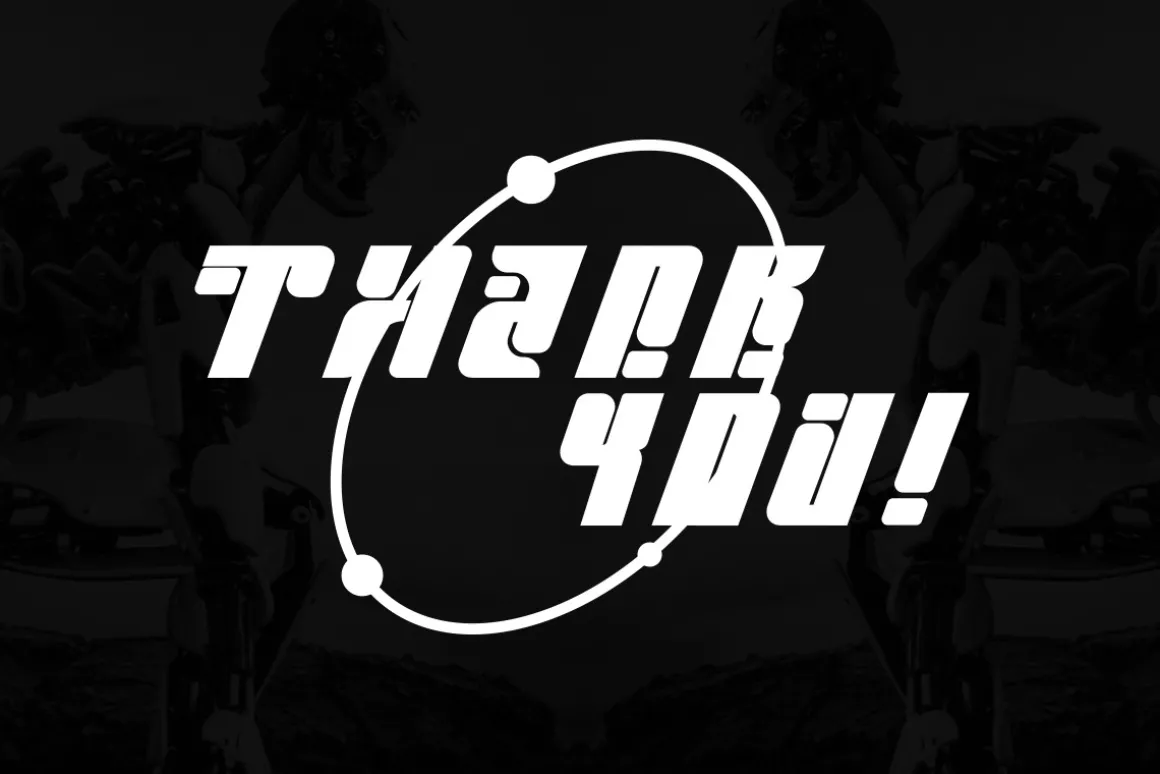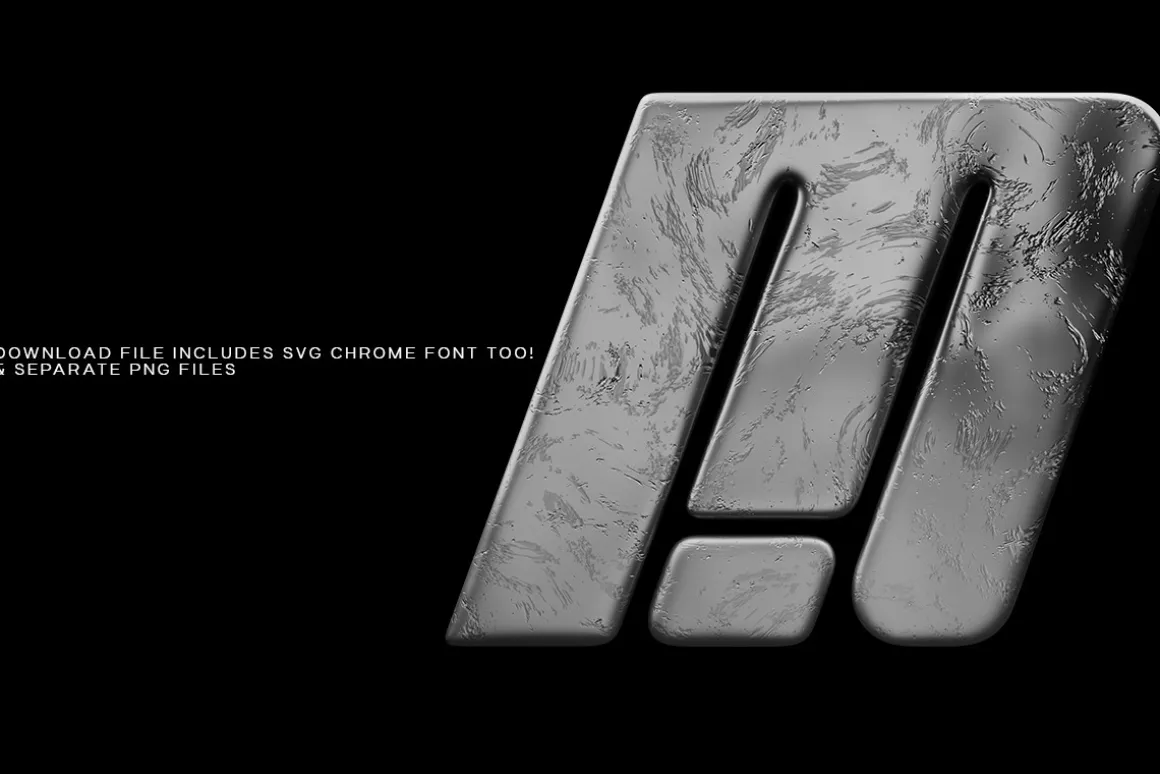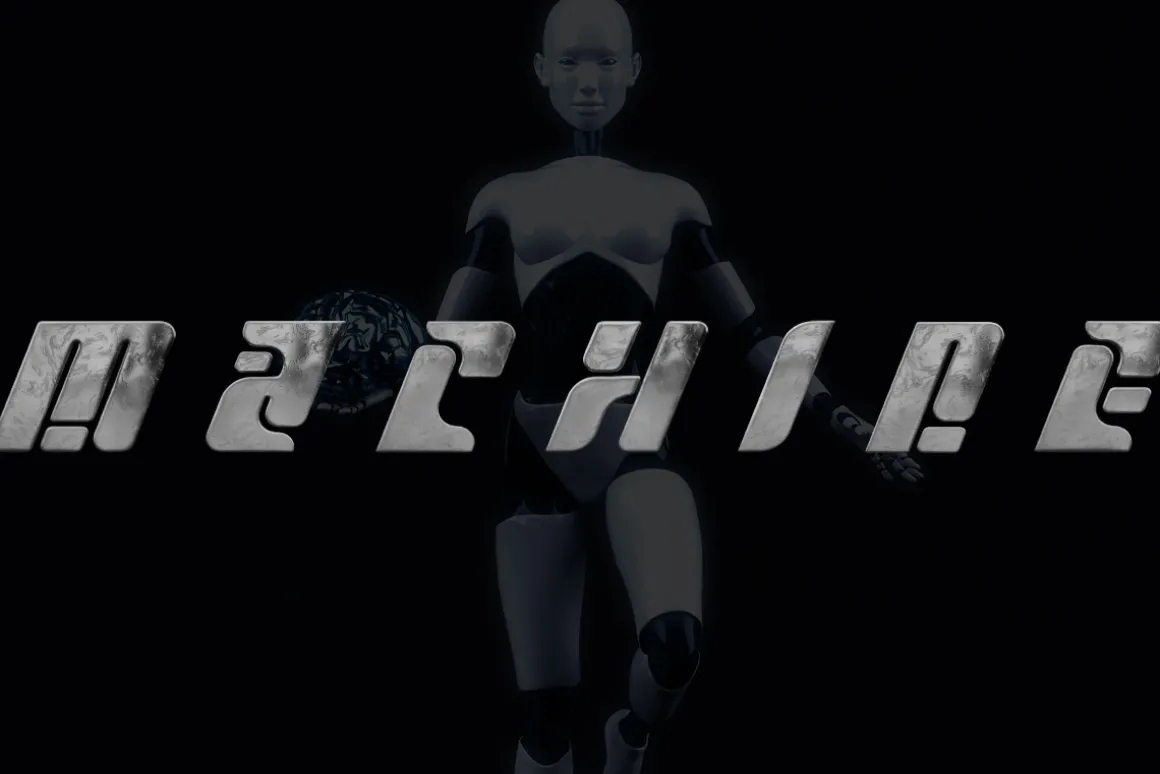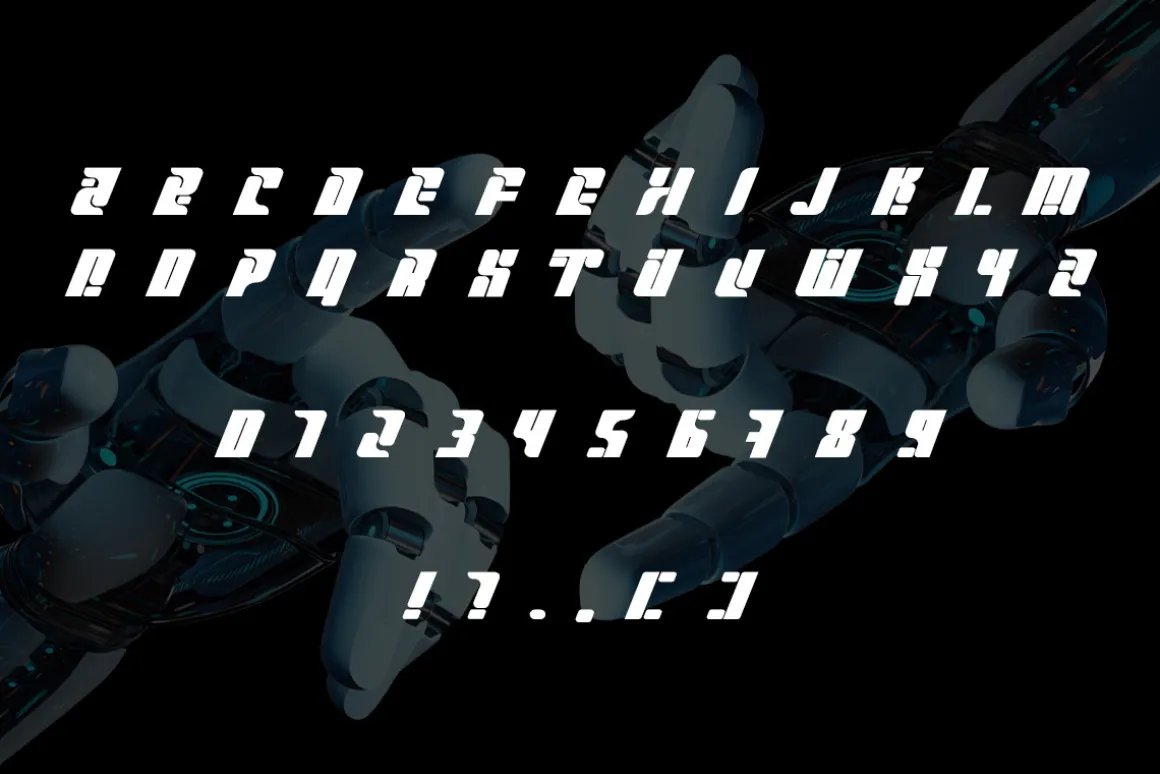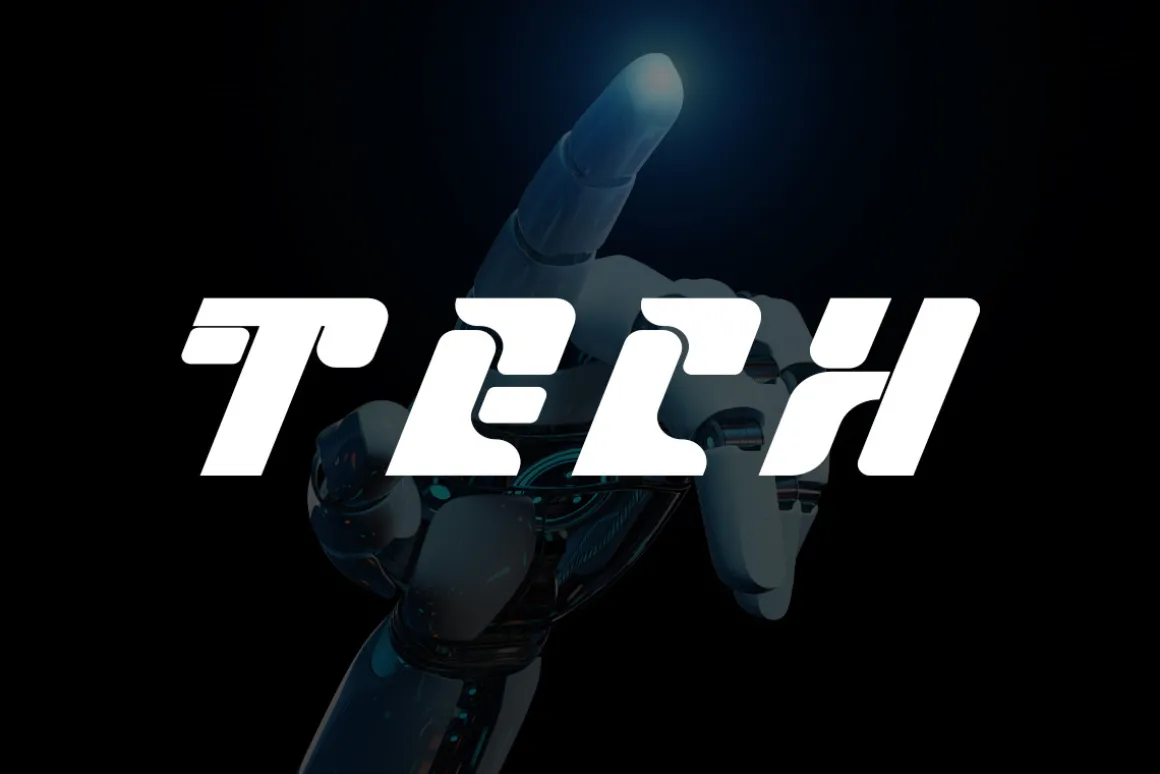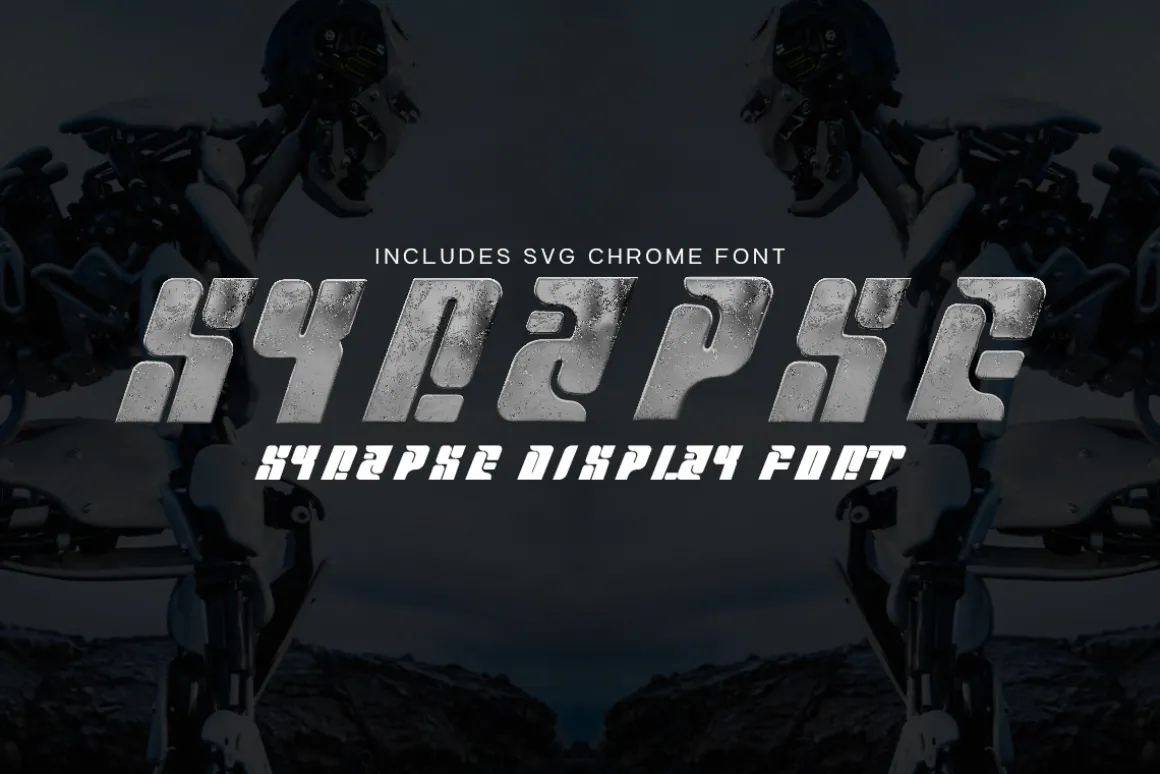
Introducing Synapse: The Ultimate Futuristic Typeface!
Unleash your creativity with Synapse, the sleek and versatile font designed for futuristic projects. With a rebellious edge and impeccable craftsmanship, Synapse captivates audiences and takes your designs to new heights. Plus, it offers an exclusive SVG font variation with a scratched metal effect for that extra touch of raw energy.